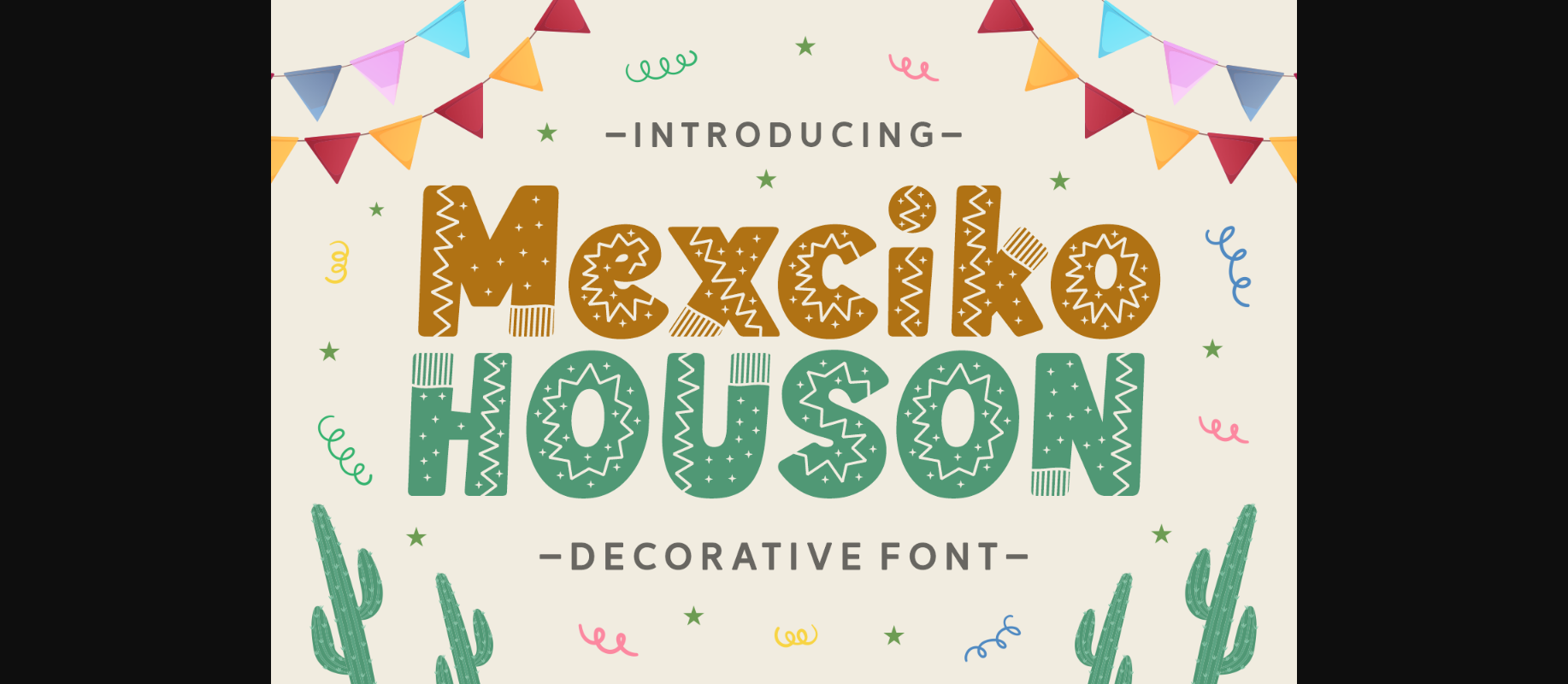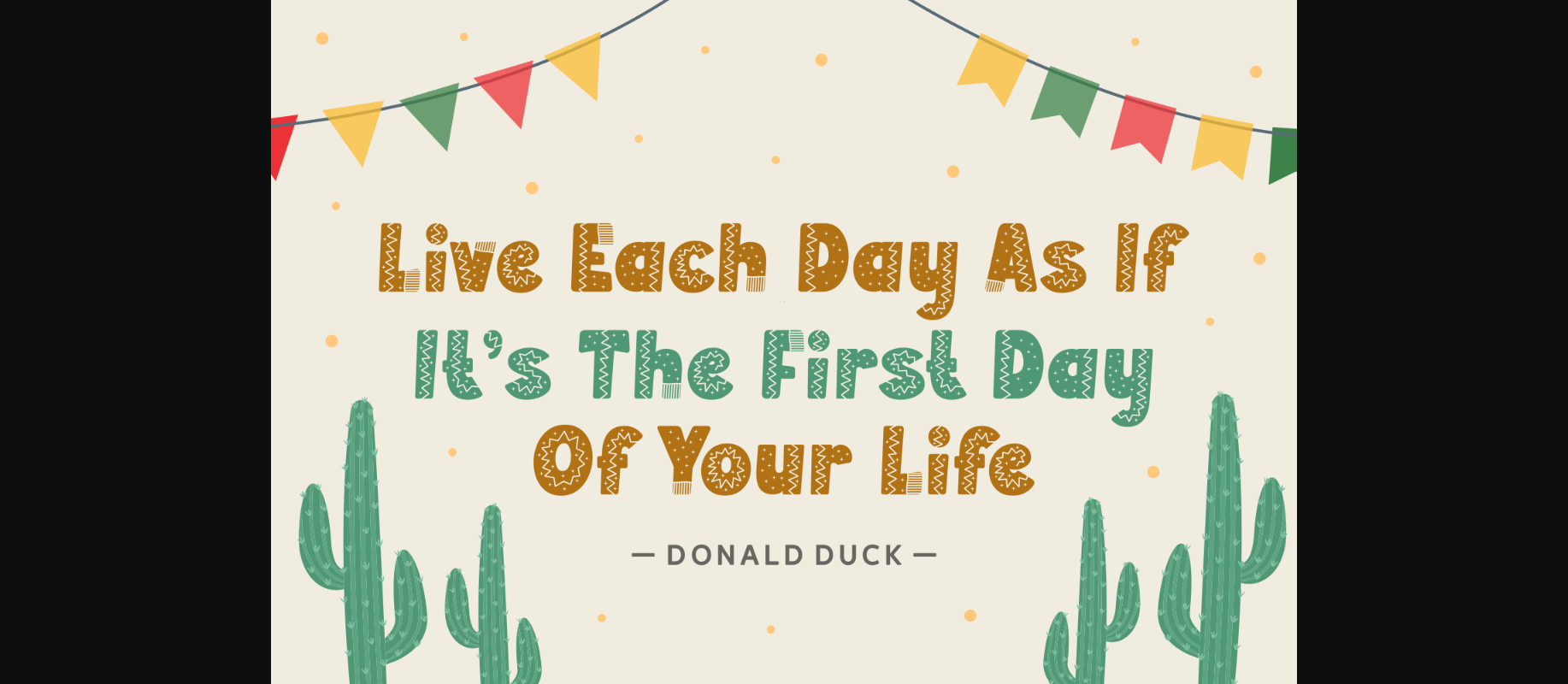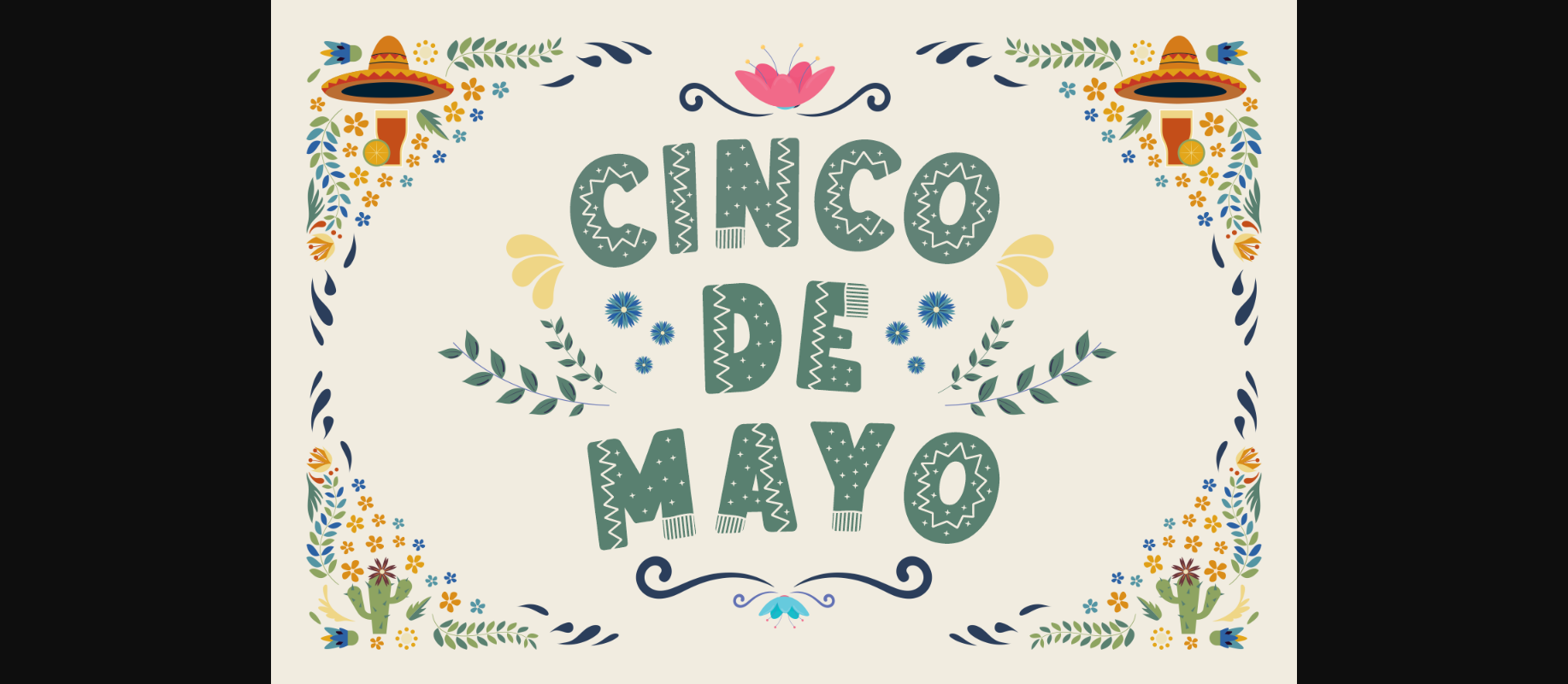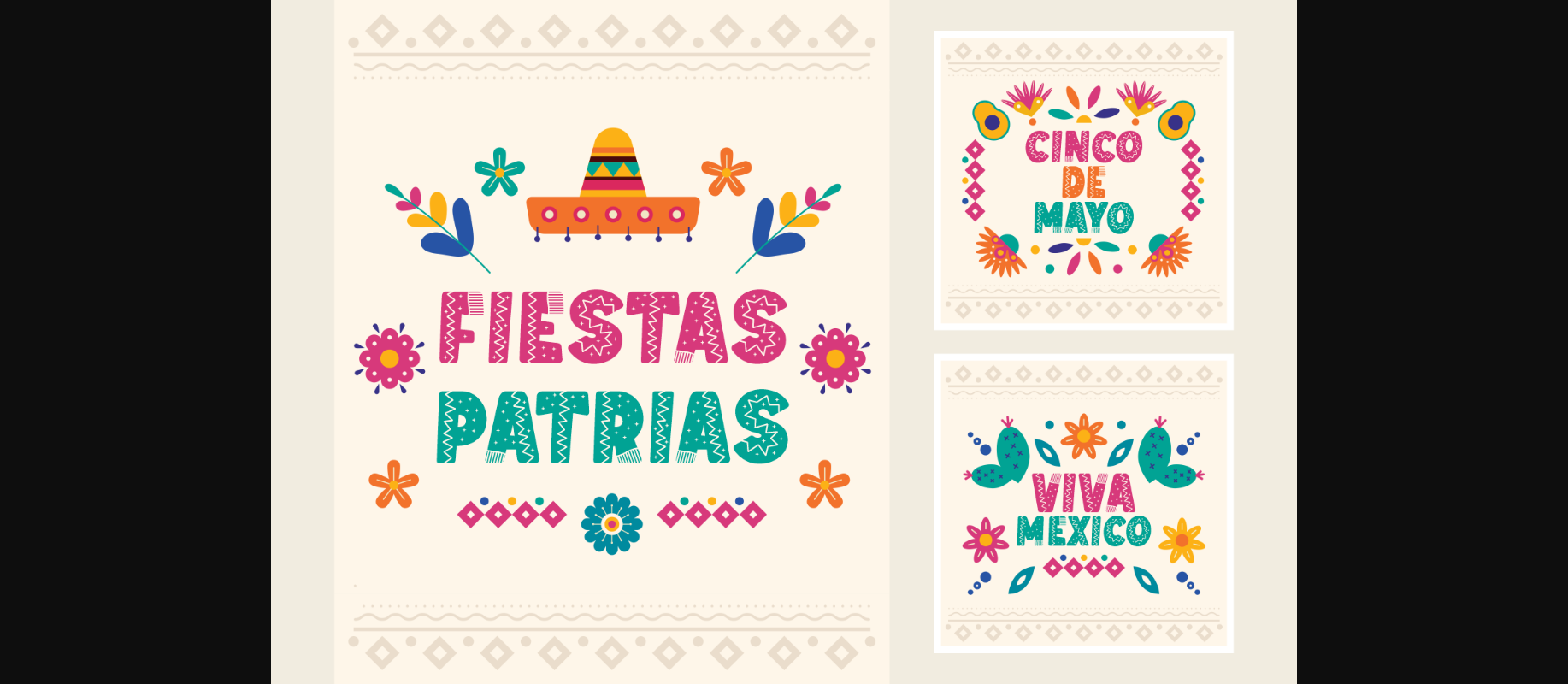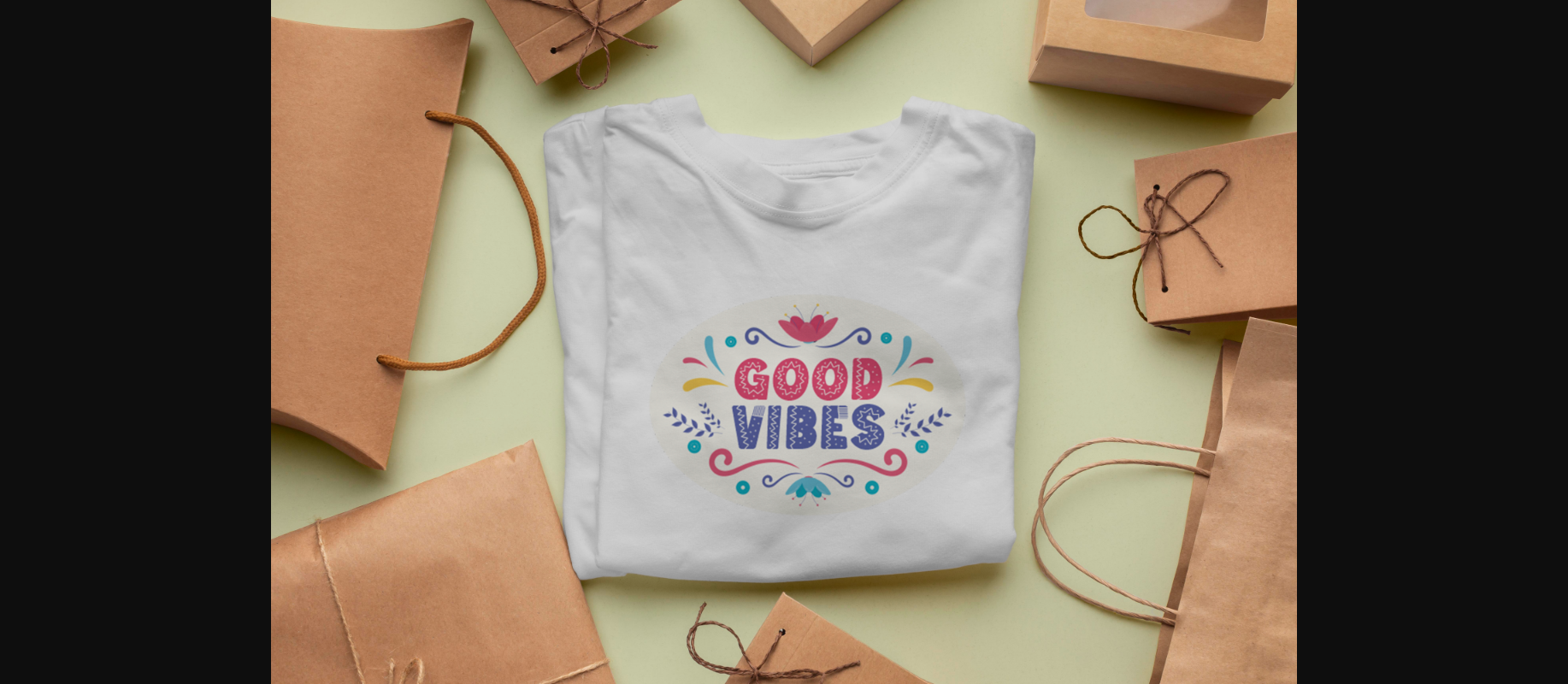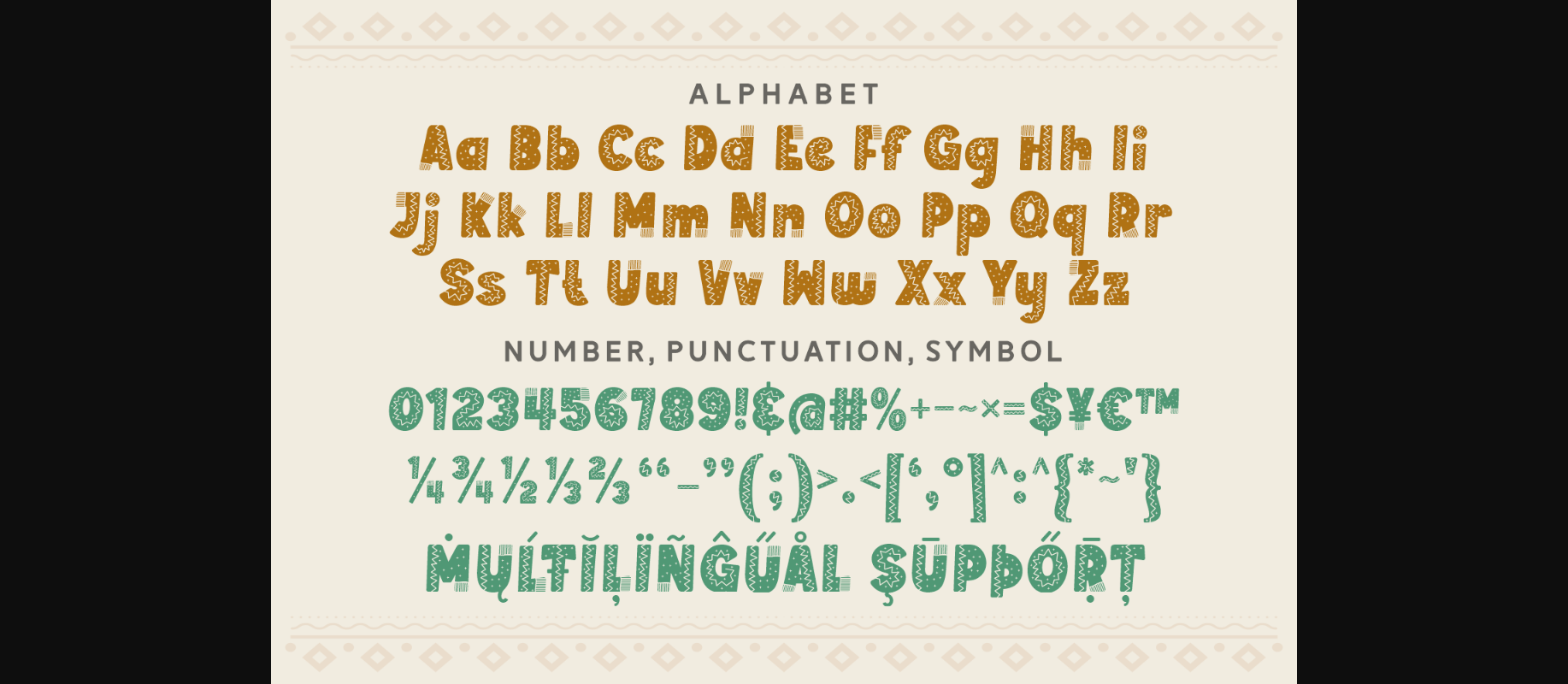
Mexciko Houson Font
About Mexciko Houson Font
Mexciko Houson is a joyful and festive decorative font. These chubby characters are embellished with cute stars and Mexican motifs. Try it on party invitations, Cinco de mayo projects, posters, cards, fabric prints, and more.